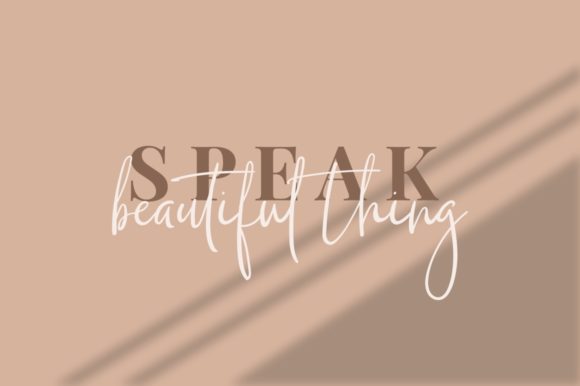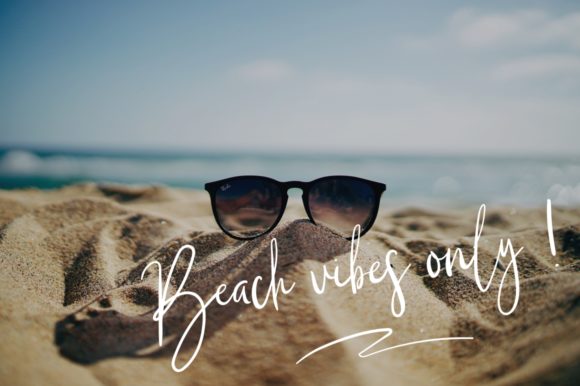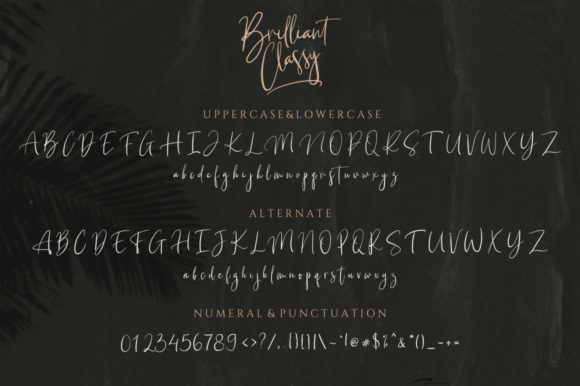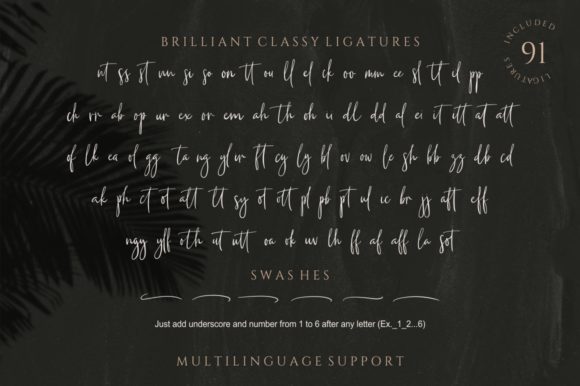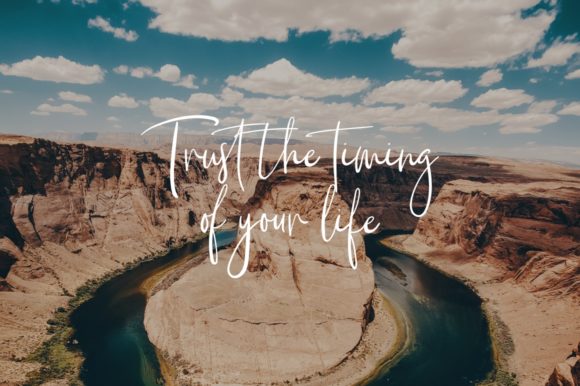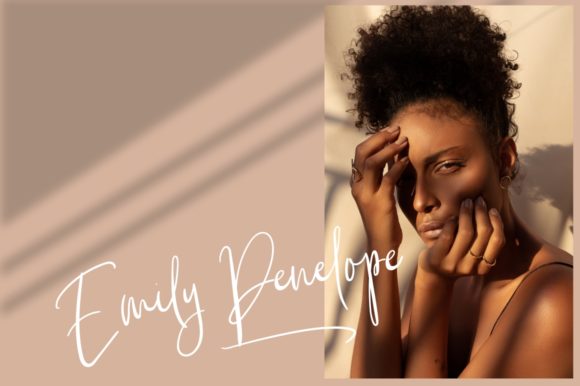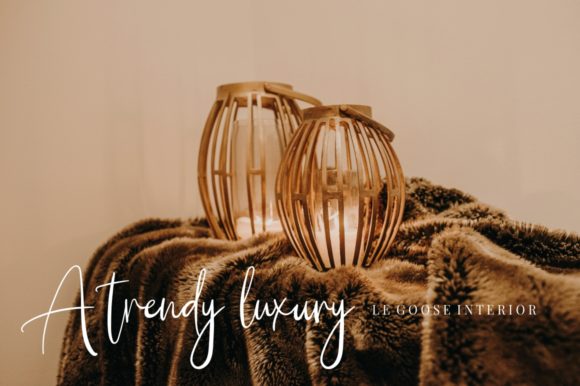
Briliant Classy Font
About Briliant Classy Font
Briliant Classy is a modern and fashionable handwritten font. It’s the perfect choice for stylish branding & logo projects, product packaging, handwritten quotes, editorial design invites, greetings and so much more!